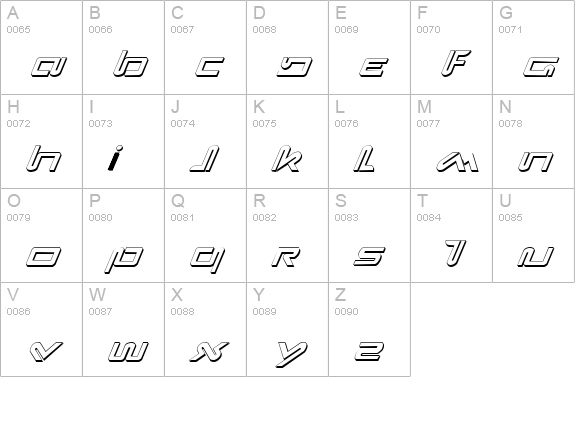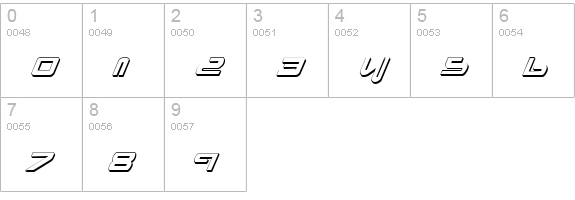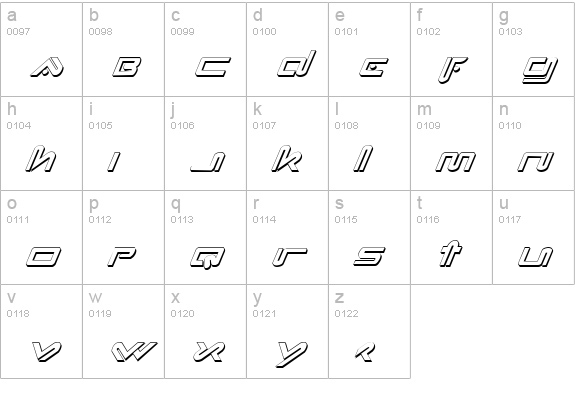
Xephyr Shadow Italic Font Details
Xephyr Shadow Italic is a distinctive, italic variant in the Xephyr typeface family \xE2\x80\x94 well suited to design and typography projects.
Xephyr Shadow Italic font is a striking and elegant typeface that exudes a sense of mystery and sophistication. The italicized version of Xephyr Shadow adds a touch of flair and drama to any text or design project. The sleek and flowing letterforms of this font make it ideal for creating eye-catching headlines, branding materials, and editorial designs. What sets Xephyr Shadow Italic font apart is its unique shadow effect that adds depth and dimension to the text, making it stand out with a subtle yet impactful presence. Whether used for print or digital media, this font is sure to captivate and engage viewers with its modern and alluring aesthetic. Best of all, Xephyr Shadow Italic font is available for free download at FontsMarket.com. This means that you can easily access and use this stylish typeface in your projects without any cost. Don't miss out on the opportunity to add a touch of elegance and sophistication to your designs with Xephyr Shadow Italic font. Download it today and elevate your creative work to new heights.